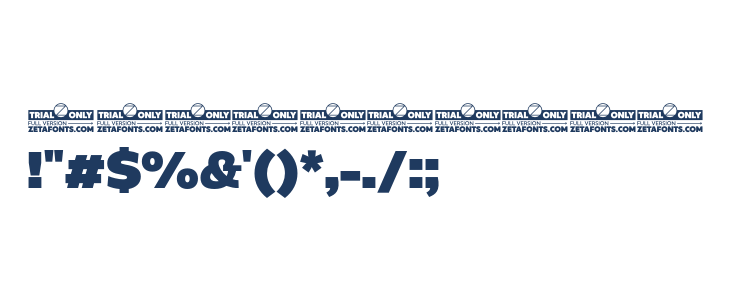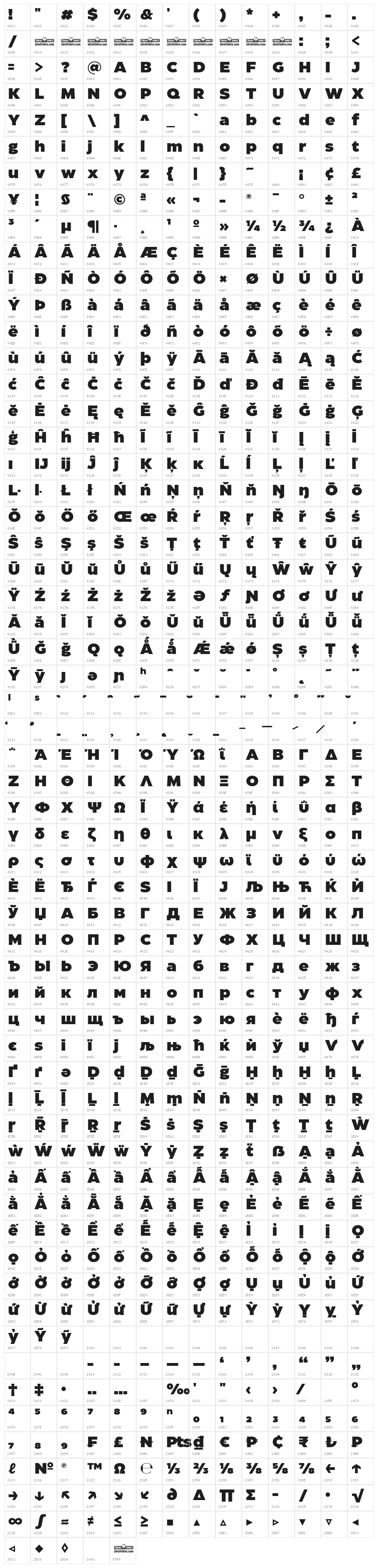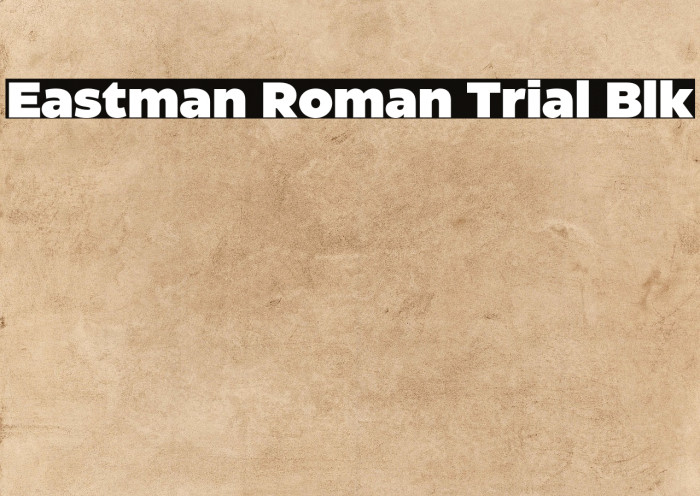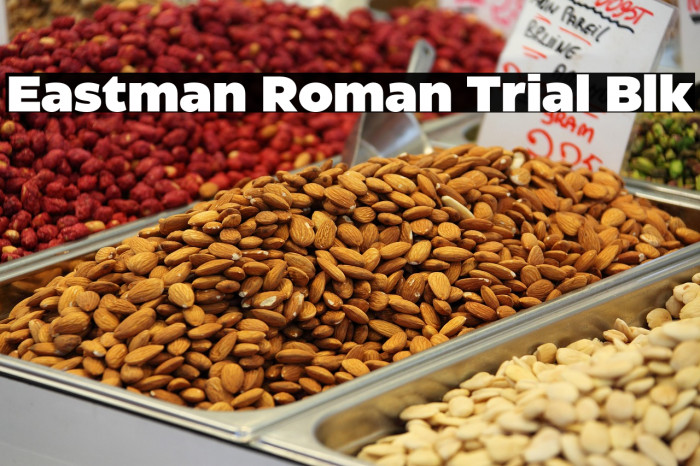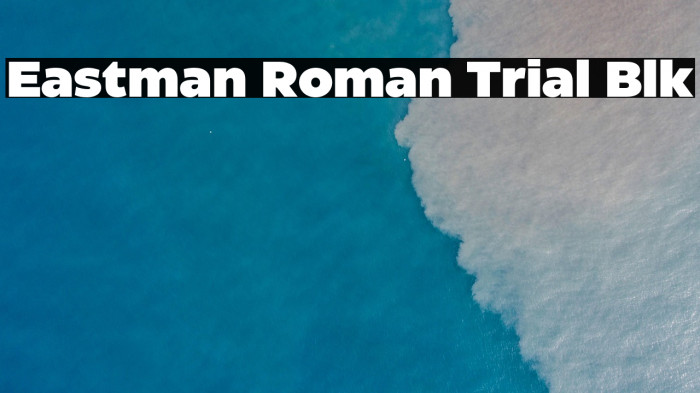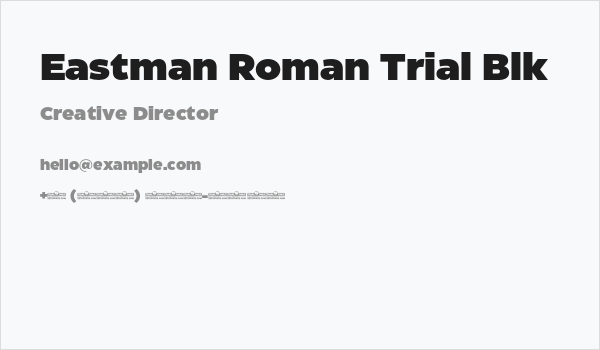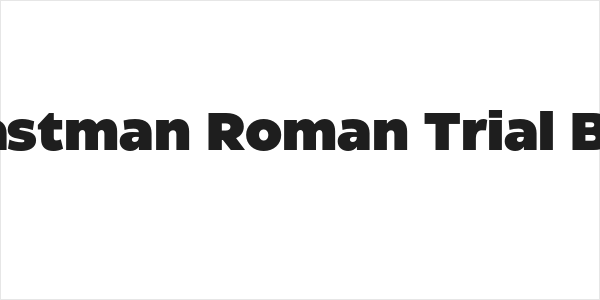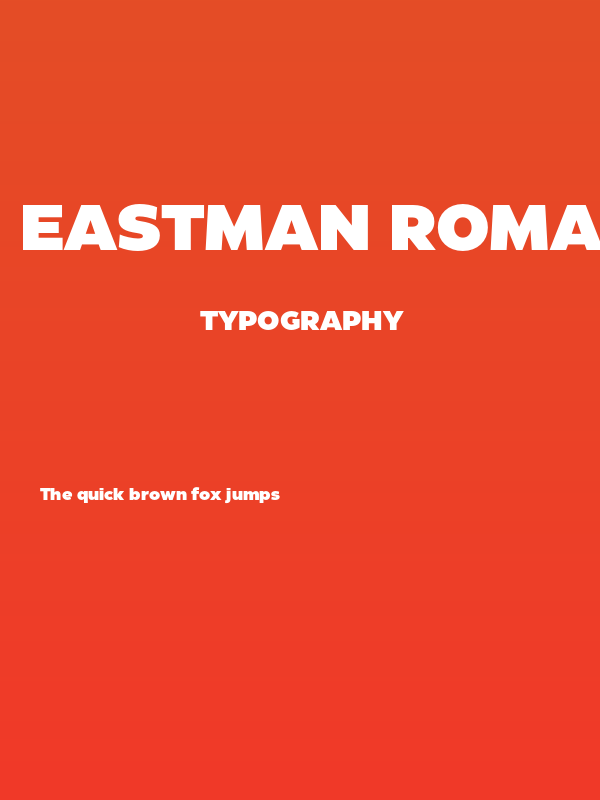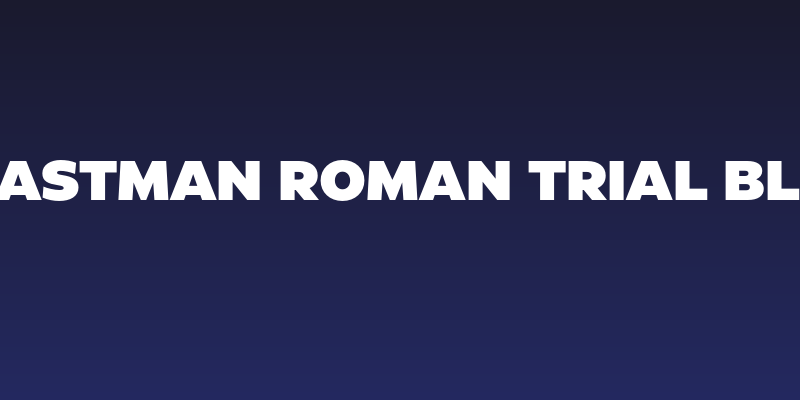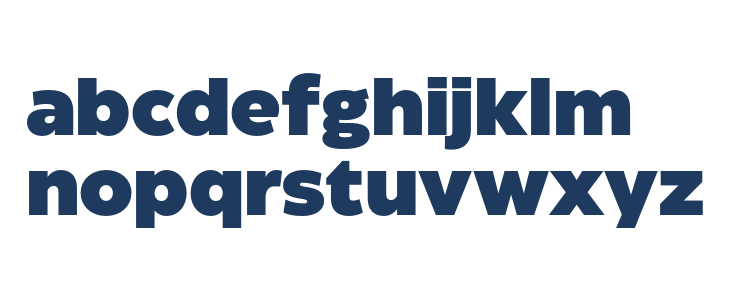
Eastman Roman Trial Blk Font
Eastman Roman Trial Blk Description
This font features bold, strong letterforms with a modern and impactful appearance. The uppercase and lowercase characters are designed with a uniform stroke width, giving them a solid and cohesive look. The font includes a full set of numerals and a variety of special characters, making it versatile for different design needs. Its bold weight and clean lines make it suitable for attention-grabbing headlines and logos. The character spacing is tight, enhancing its bold presence and making it ideal for impactful visual statements.